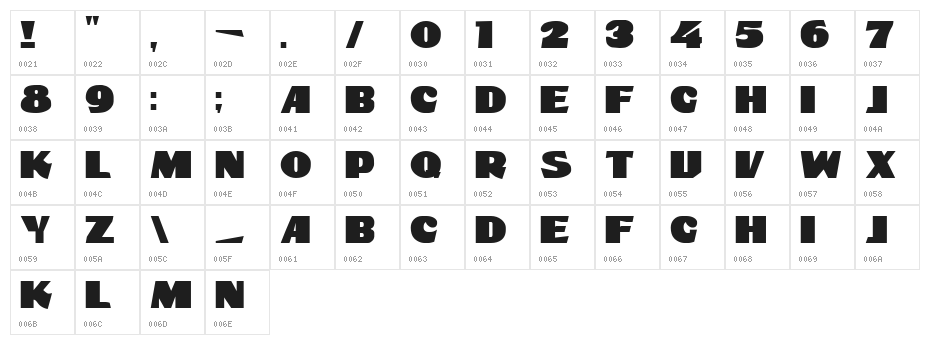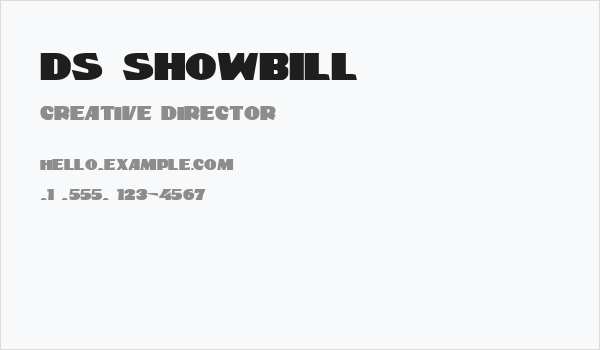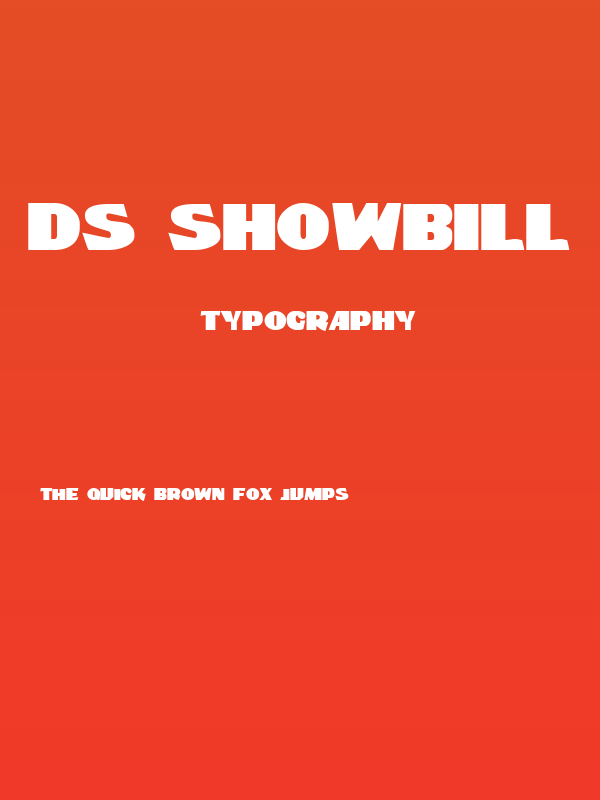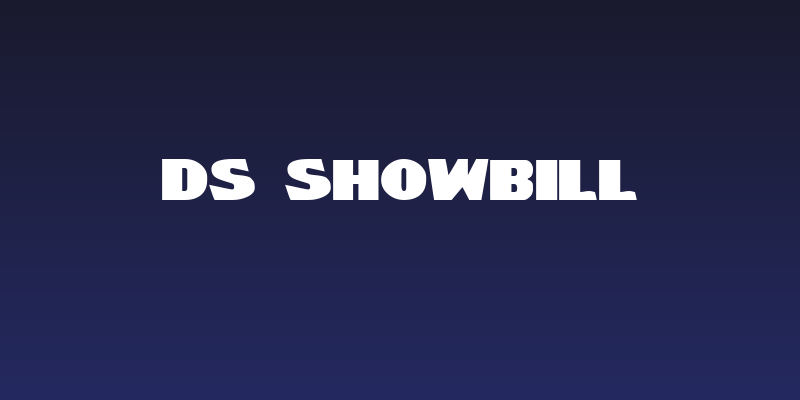
DS ShowBill Font
DS ShowBill Description
This font features a bold and impactful design with strong geometric shapes and a heavy weight. The characters are wide and have a distinct presence, making them ideal for attention-grabbing headlines. The uppercase letters are particularly striking, with a uniform height and width that create a cohesive look. The numbers and special characters maintain the same bold style, ensuring consistency across all text elements. The font's design is reminiscent of vintage poster typography, with a modern twist that makes it suitable for contemporary projects.
| Proposed Projects | Ideal for posters, headlines, branding, and any project requiring a strong visual impact. |